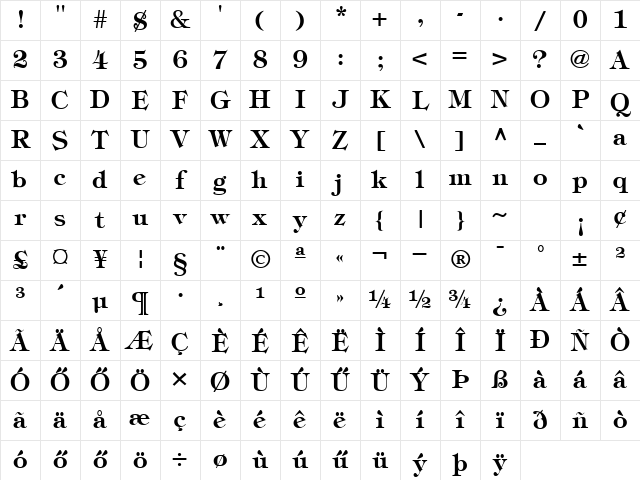
HTiffany Bold Free Font
HTiffany Bold
HTiffany Family
Design Context for HTiffany
HTiffany is a composed and adaptable typeface that performs quietly and consistently across a wide range of design contexts. Its bold stroke weight gives it real presence on the page.